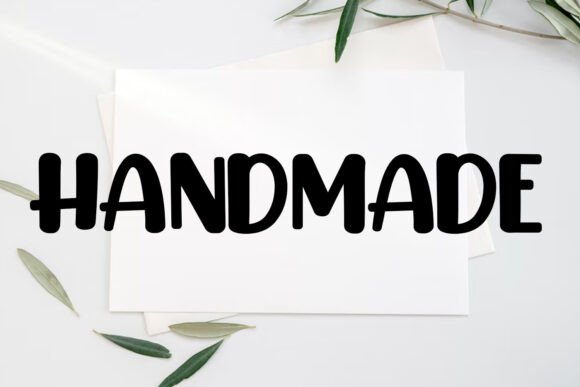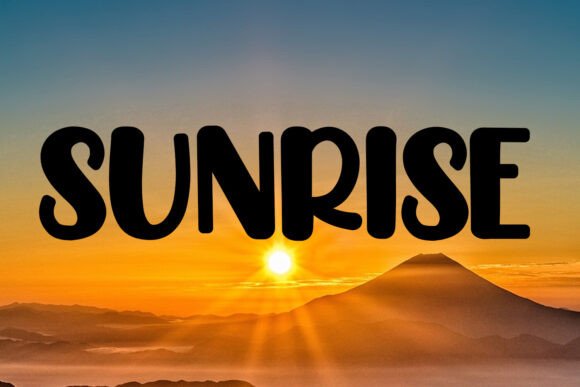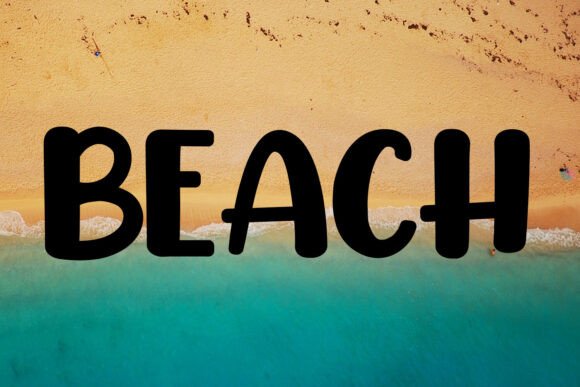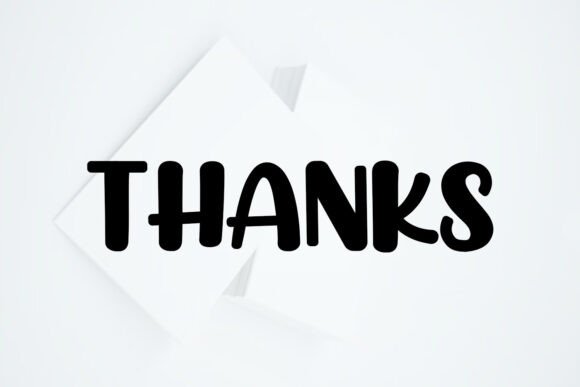
Introducing Baby Bold Font: Elevate Your Designs with a Unique and Versatile Typeface
In the world of design, fonts play a crucial role in conveying messages, evoking emotions, and creating a lasting impression. If you’re a designer, crafter, or business owner looking to add a touch of elegance and sophistication to your projects, look no further than Baby Bold Font. This exquisite font is designed to breathe life into your designs, offering a clean, robust aesthetic that seamlessly complements a multitude of creative mediums.
The Versatility of Baby Bold Font
Baby Bold Font is not just another font; it’s a dynamic tool that can elevate your designs and help you stand out in a crowded market. Its simplicity and distinctiveness make it an ideal choice for various applications, including:
• YouTube Banners: Add a flamboyant flare to your YouTube channel with Baby Bold Font. Its bold and clean design makes it perfect for creating eye-catching banners that grab viewers’ attention.
• Wedding Invitations: Bring a touch of sophistication and elegance to your wedding invitations with Baby Bold Font. Its classic design ensures that your invitations are both stylish and readable.
• ID Cards: Create professional and visually appealing ID cards with Baby Bold Font. Its robust aesthetic ensures that your ID cards make a lasting impression.
• Cover Logo Mockups: Enhance your cover logo mockups with Baby Bold Font. Its unique design adds a touch of personality to your logos, making them stand out.
• Craft Projects: Add a touch of elegance to your craft projects with Baby Bold Font. Its versatility makes it perfect for various craft applications, from paper crafting to DIY projects.
The Benefits of Using Baby Bold Font
Baby Bold Font offers several benefits that make it an ideal choice for designers and crafters. Some of the key benefits include:
• Unique Design: Baby Bold Font boasts a unique design that sets it apart from other fonts. Its clean and robust aesthetic ensures that your designs stand out.
• Versatility: Baby Bold Font is incredibly versatile, making it suitable for various applications and creative mediums.
• Ease of Use: Baby Bold Font is easy to use and can be easily integrated into your design workflow.
• Scalability: Baby Bold Font is highly scalable, ensuring that it looks great in various sizes and resolutions.
Unleash Your Creativity with Baby Bold Font
Baby Bold Font is more than just a font; it’s a creative tool that can help you unleash your full potential. Whether you’re a designer, crafter, or business owner, Baby Bold Font offers a world of possibilities. Its unique design and versatility make it an ideal choice for:
• Branding: Create a consistent brand image with Baby Bold Font. Its clean and robust aesthetic ensures that your brand stands out.
• Marketing: Use Baby Bold Font to create eye-catching marketing materials, such as brochures, flyers, and posters.
• Packaging: Add a touch of elegance to your packaging with Baby Bold Font. Its unique design ensures that your products stand out on store shelves.
In conclusion, Baby Bold Font is a unique and versatile typeface that can elevate your designs and help you stand out in a crowded market. Its clean, robust aesthetic and simplicity make it an ideal choice for various applications and creative mediums. Whether you’re a designer, crafter, or business owner, Baby Bold Font is a dynamic tool that can help you unleash your full potential. So why wait? Unleash your creativity with Baby Bold Font today and take your designs to the next level.